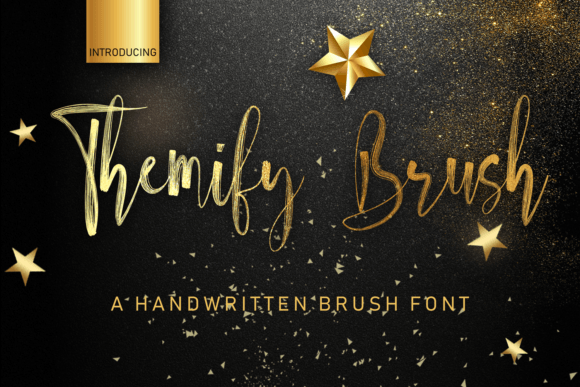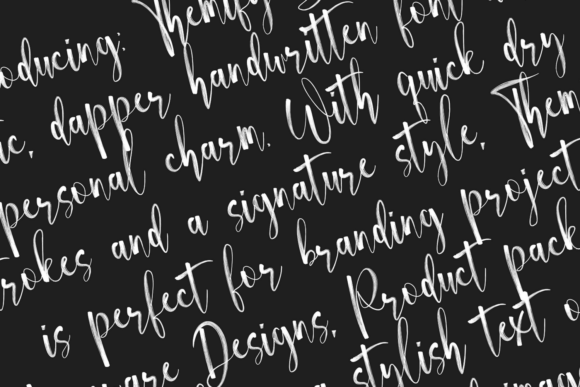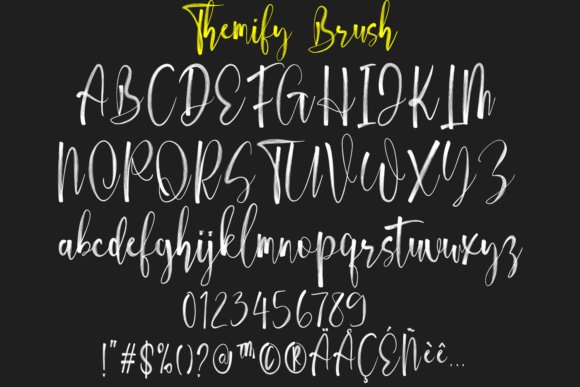
Themify Brush Font
About Themify Brush Font
Themify Brush is a casual handwritten font, created by using a brush pen. Clean and a little bit quirky, this font is the perfect fit for all of your logos, branding, social media, and crafty DIY projects.